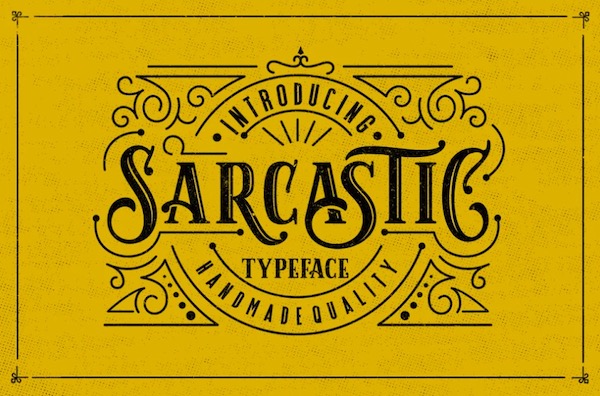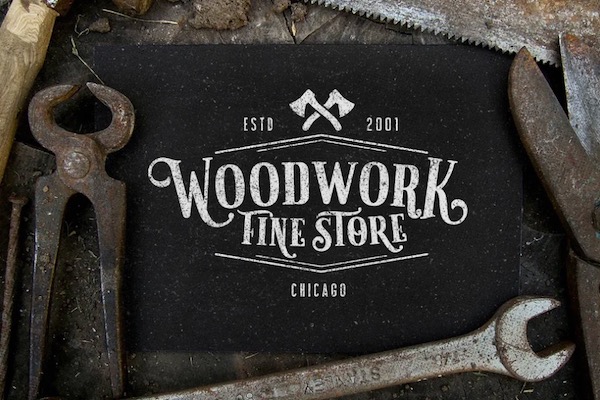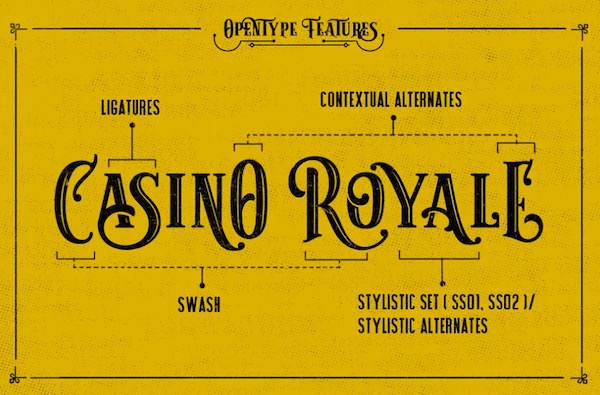
Sarcastic is a modern classic display font that was created and shared by Graptail. Sarcastic has lowercase & uppercase, along with punctuations, and numerals. This display font has also many variations on each character.
Sarcastic Display Font
Designer Name: Graptail